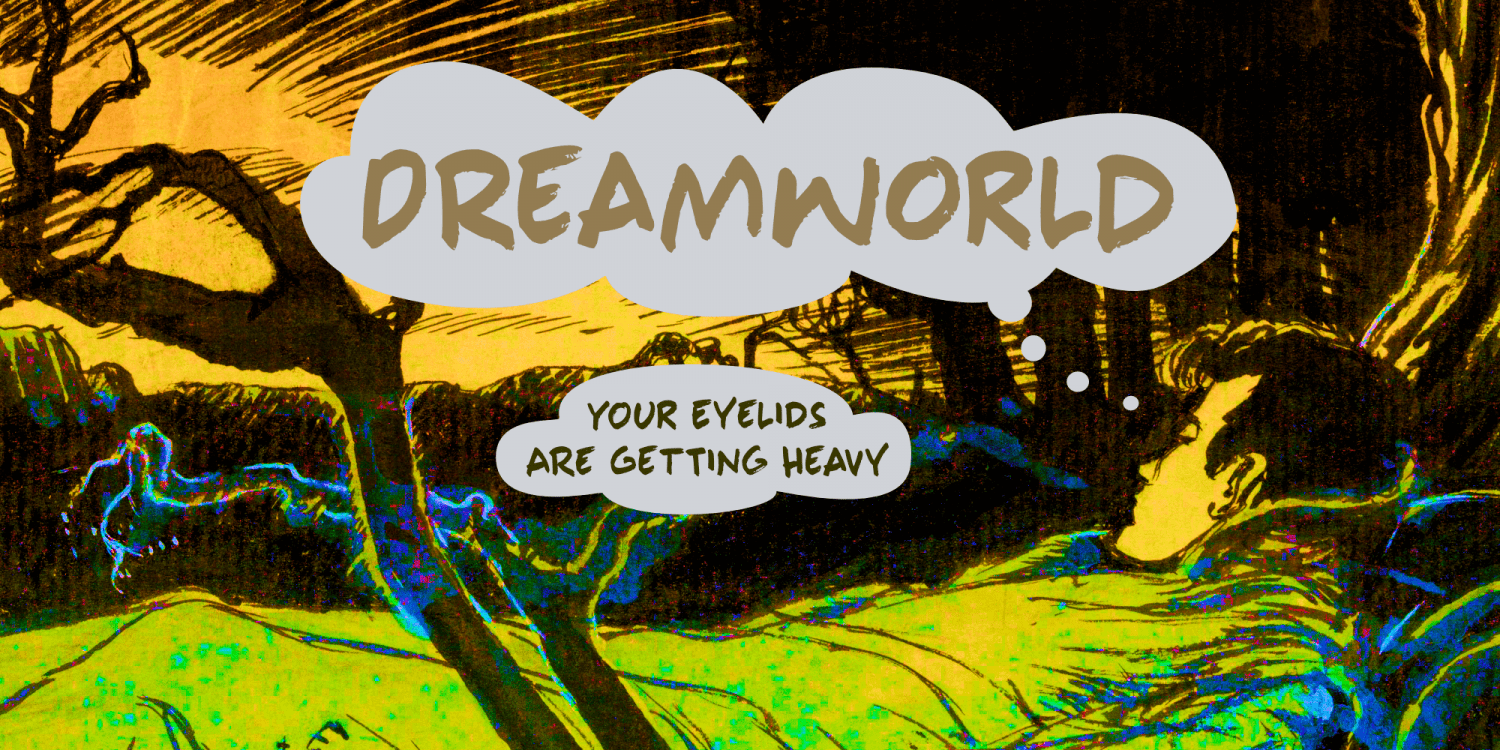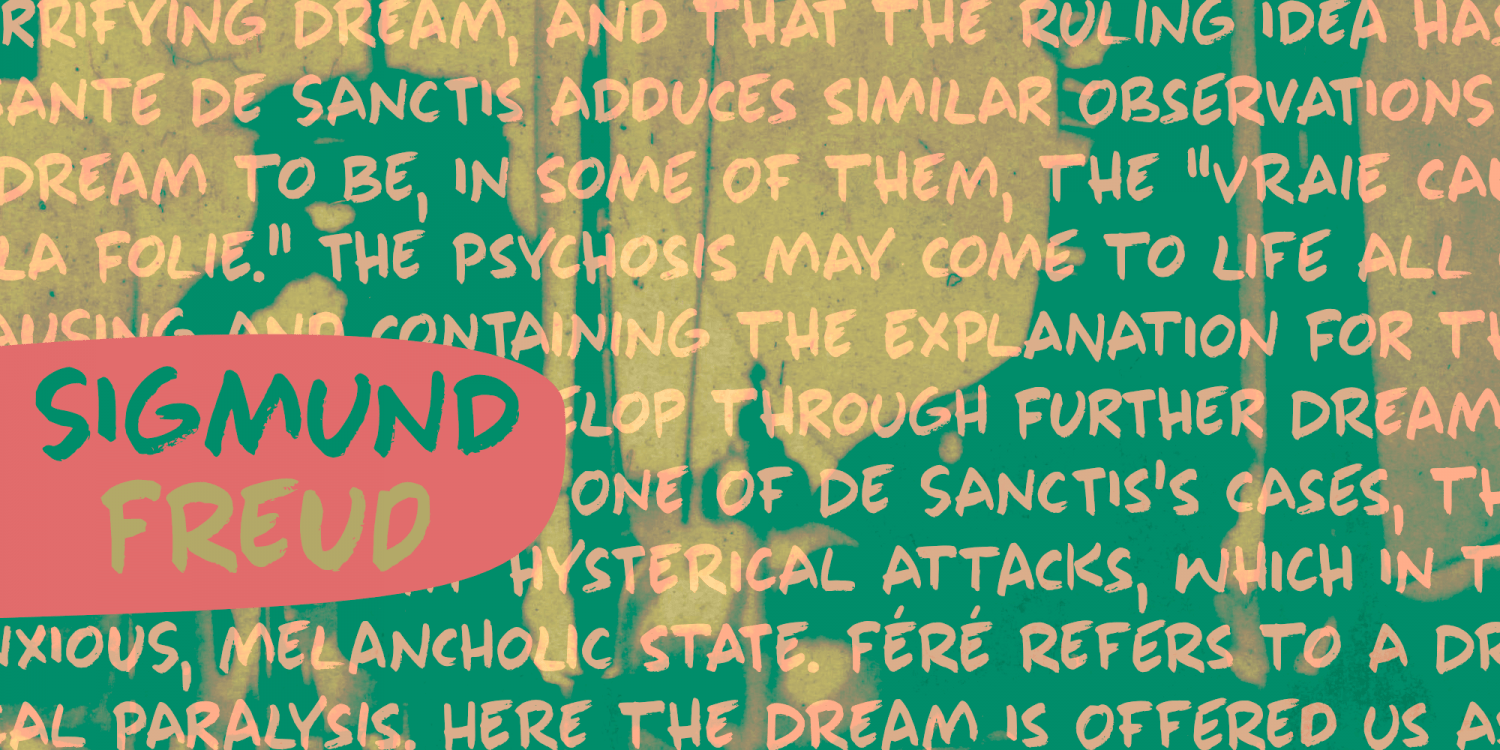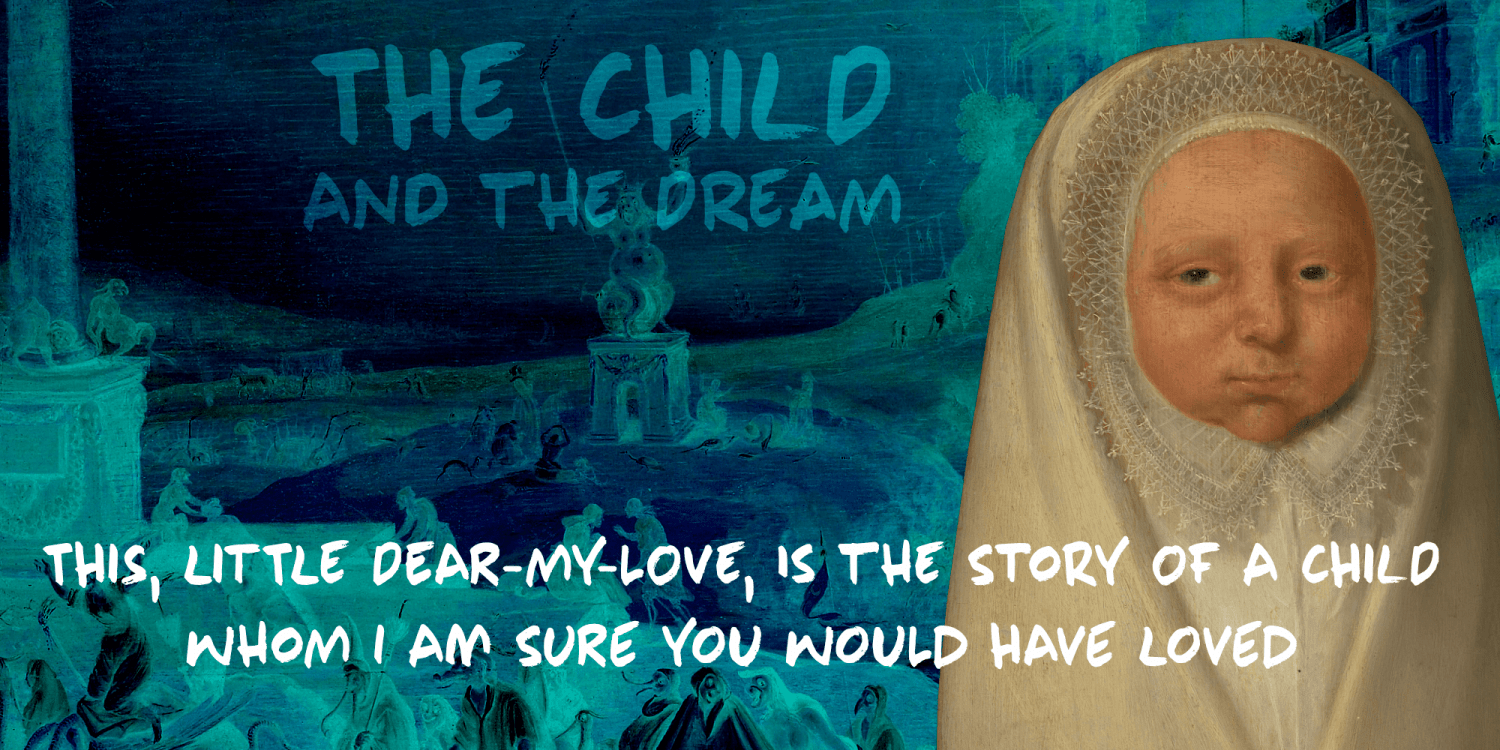
About Dreamworld
The last couple of years felt like I was living in a bad dream: I witnessed crazy leaders, climate change and now Covid. I usually name my fonts after things that affect me and this one is not different. Dreamworld is a font I made with a cheap marker…